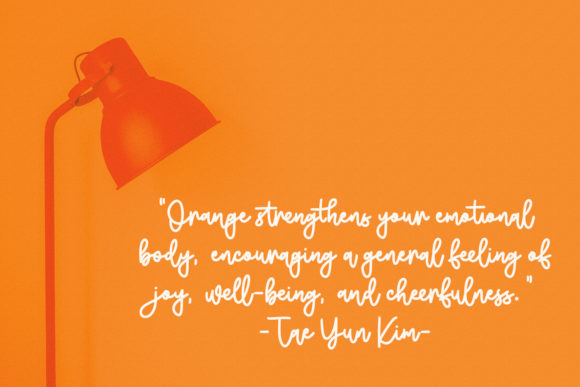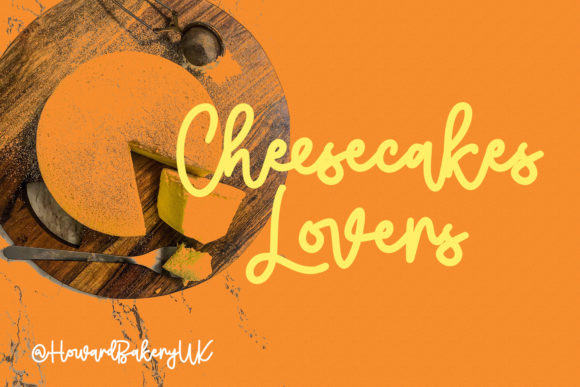
Cheesyfloat Script Font
db-ku.com - Script & Handwritten -- Cheesyfloat Script is a whimsical script font with a relaxed theme, featuring a chic style. No matter the topic, this font will be an incredible asset to your fonts’ library, as it has the potential to elevate any creation.